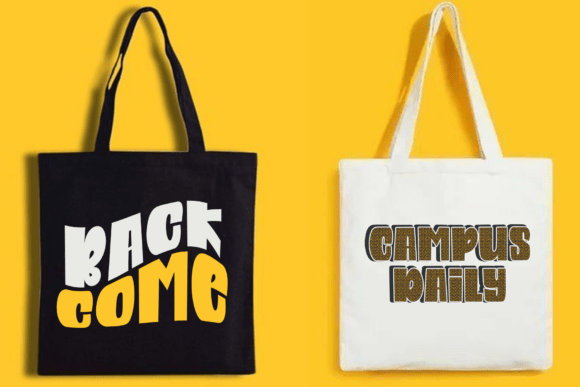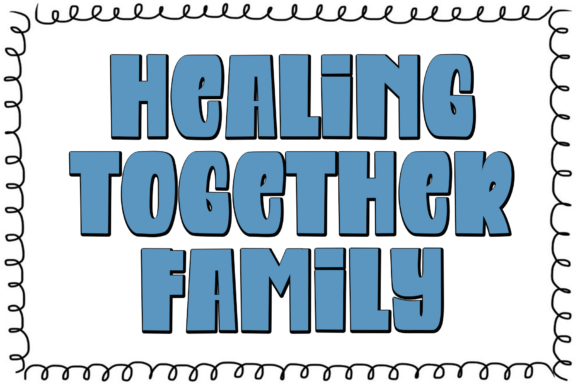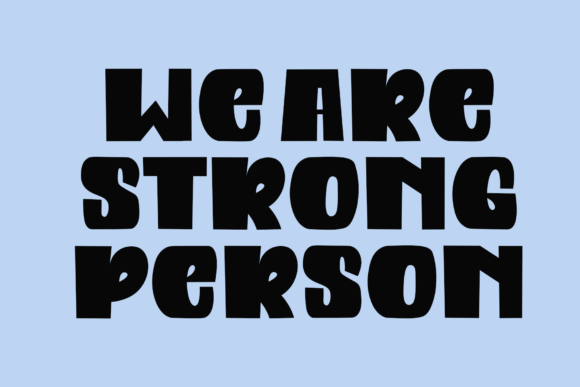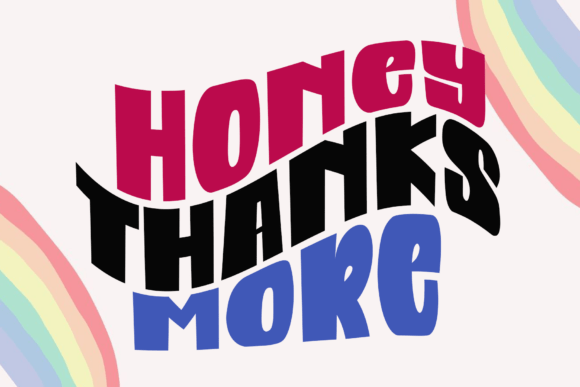
The Grinch Wave Font: A Designer’s New Best Friend
I still remember the design project that led me to discover the Grinch Wave font. I was working on a branding project for a new coffee shop, and I was struggling to find the perfect font that captured the warm and inviting atmosphere of their cozy cafe. That’s when I stumbled upon Grinch Wave, and it instantly became my go-to font for the project. With its casual and neat display style, it perfectly conveyed the friendly vibe of the coffee shop, and my client loved it! In this article, I’ll share my experience with Grinch Wave, its features, and how to make the most of it in your designs.
An Honest Review of Grinch Wave
So, what makes Grinch Wave so special? Here are some things I love about this font:
- ✨ Clean lines and balanced letterforms: Grinch Wave has a polished finish that makes it perfect for branding, headlines, and packaging.
- ✅ Subtle rounded edges: These add a touch of warmth and friendliness to the font, making it approachable and inviting.
- ✅ Versatile style: Grinch Wave works well in both digital and print designs, making it a great addition to any designer’s toolkit.
While Grinch Wave is an excellent font, it’s not without its quirks. Here are a few things to keep in mind:
- ⚠️ Limited use in formal designs: Grinch Wave is a casual font, so it may not be the best choice for formal or corporate designs.
- 🤔 Some characters may require manual kerning: While the font is generally well-spaced, some characters may require manual kerning to achieve optimal results.
The Story Behind Grinch Wave
Grinch Wave was designed by a team of typographers who wanted to create a font that captured the essence of modern handwritten typography. Inspired by the friendly and approachable vibe of handwritten scripts, they crafted a font that’s both polished and inviting. The result is a font that’s perfect for designers, crafters, and creative hobbyists who want to add a warm and inviting touch to their designs.
| What is Grinch Wave? | Grinch Wave is a casual and neat display font that combines simplicity with a friendly, approachable vibe. |
| What is Grinch Wave suitable for? | Grinch Wave is ideal for branding, headlines, packaging, and digital content. |
Overall, Grinch Wave is a versatile and charming font that’s perfect for designers, crafters, and creative hobbyists. With its clean lines, balanced letterforms, and subtle rounded edges, it’s sure to add a warm and inviting touch to any design.